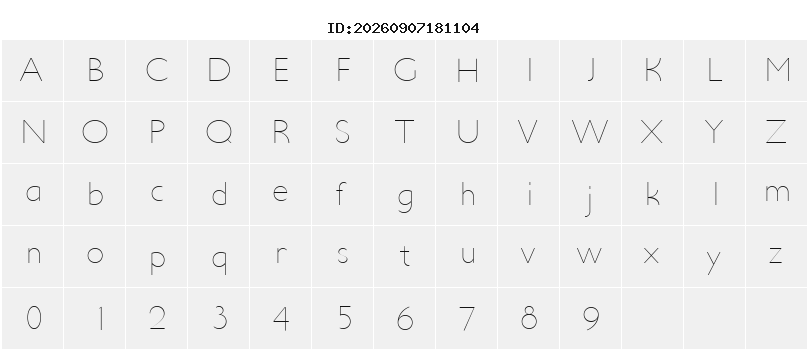
• Font Name: UltimaPDac
• Manufacturer: Prescott Design
About UltimaPDac.ttf
UltimaPDac.ttf is a modern, elegant sans-serif font designed for ultimate readability and visual harmony. Perfect for branding, headlines, web design, and print materials.